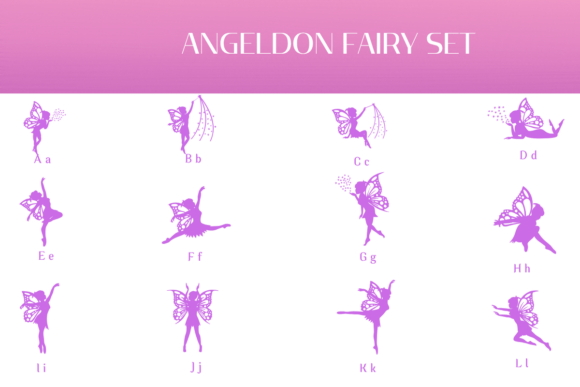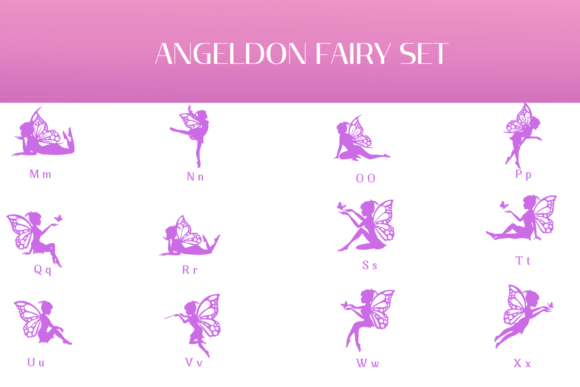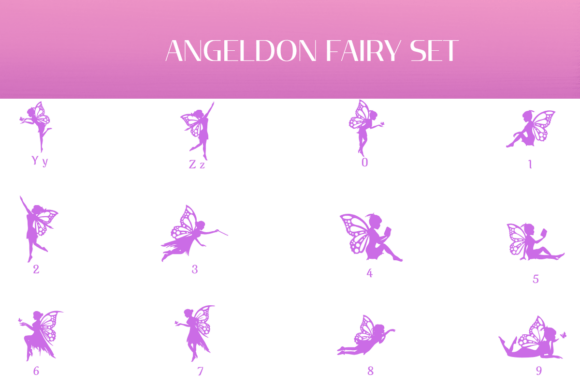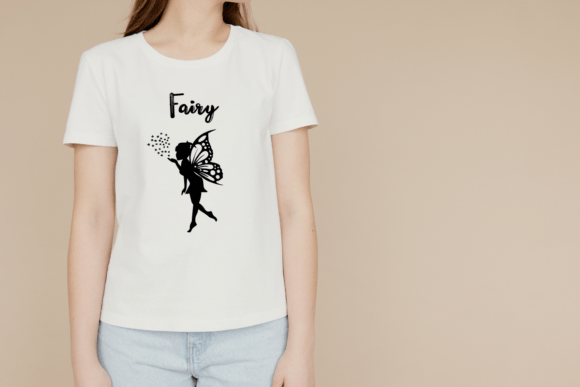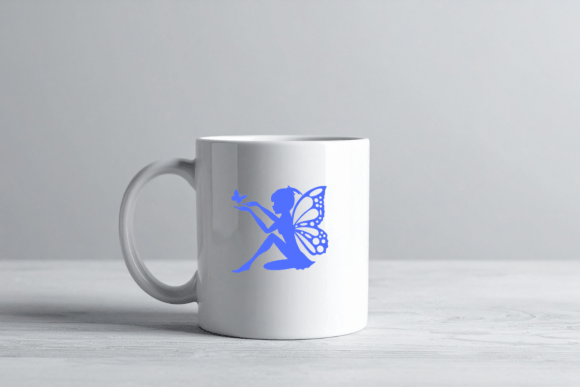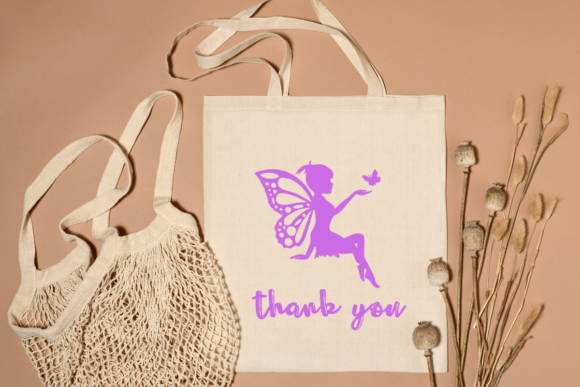
Unleash Your Creativity with Whimsy
Have you ever been brainstorming for a new project and suddenly, a burst of imagination hits you? Maybe it’s a quirky idea for a greeting card, or a playful concept for a social media post. Whatever it is, that spark of creativity is what drives us to create something truly special.
When you need to add a touch of whimsy to your designs, the Angeldon Fairy Set Font is a perfect companion. This enchanting dingbats font is designed to bring a sense of magic to your notes, diaries, and greeting cards. But its possibilities don’t stop there – you can also use it to create stunning banners, mugs, and even shirts.
Angeldon Fairy Set Font Key Features
- Unique Characteristics: Whimsical and delicate design, featuring intricate details and subtle flourishes, making it perfect for fairy-themed designs, children’s books, and fantasy artwork.
Angeldon Fairy Set Font Review
Overall, I’d say the Angeldon Fairy Set Font is a lovely addition to any designer’s toolkit. It’s ✨ whimsical and ✨ delicate, perfect for creating a sense of magic and wonder in your designs.
The font’s ✨ hand-drawn feel and ✨ intricate details make it a great choice for projects that require a touch of elegance and sophistication. I particularly enjoy using it for branding and packaging designs, where its ✨ unique personality can really shine.
While the Angeldon Fairy Set Font is certainly a beautiful font, there are a few limitations to be aware of.
- ⚠️ Limited font sizes: The font can become a bit pixelated when scaled up to larger sizes, which may not be ideal for designs that require large text.
- ⚠️ Limited language support: The font only supports a limited range of languages, which may not be suitable for designs that require multiple language support.
Overall, I think the Angeldon Fairy Set Font is a great addition to any designer’s toolkit, but it’s essential to be aware of its limitations and use it judiciously in your designs.
The Angeldon Fairy Set Font is ideal for whimsical and magical designs, such as:
– Children’s book illustrations
– Fantasy-themed posters and flyers
– Fairy-inspired social media graphics
– Whimsical wedding invitations and stationery
To get the most out of the Angeldon Fairy Set Font, try combining it with other whimsical elements, such as:
– Floral patterns
– Watercolor textures
– Sparkles and glitter effects
Alternatives to Angeldon Fairy Set Font
Aurora Script
Aurora Script is a beautiful, elegant font that is perfect for creating a whimsical and dreamy atmosphere. It features flowing connections and a touch of magic. Use it for wedding invitations, baby shower invitations, or any other occasion that requires a touch of romance. Compared to Angeldon Fairy Set Font, Aurora Script is more versatile and can be used in a wider range of applications.
Creamy Script
Creamy Script is a soft, gentle font that is ideal for creating a warm and inviting atmosphere. It features a mix of cursive and handwritten elements, making it perfect for food labels, product packaging, and other applications where a friendly tone is required. Compared to Angeldon Fairy Set Font, Creamy Script is more subdued and less ornate.